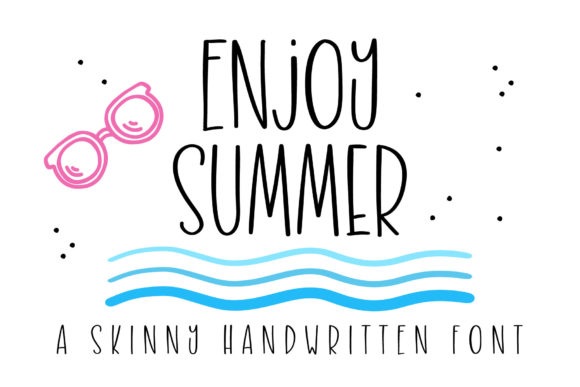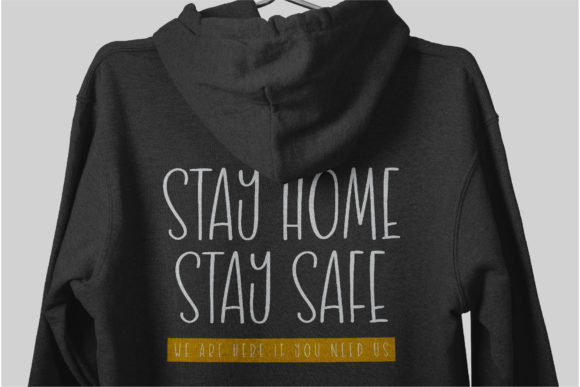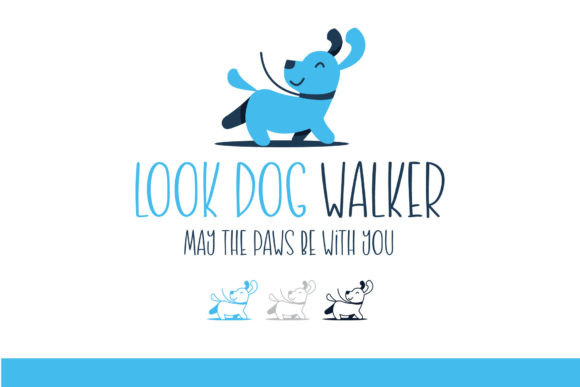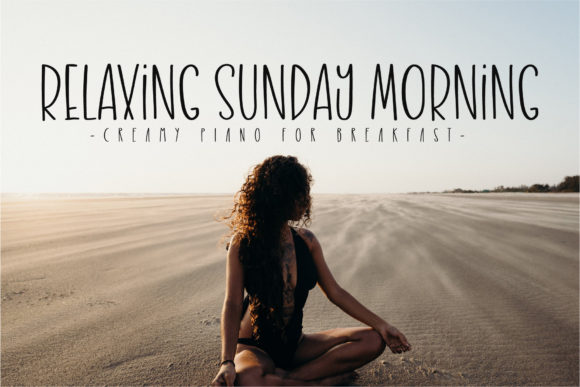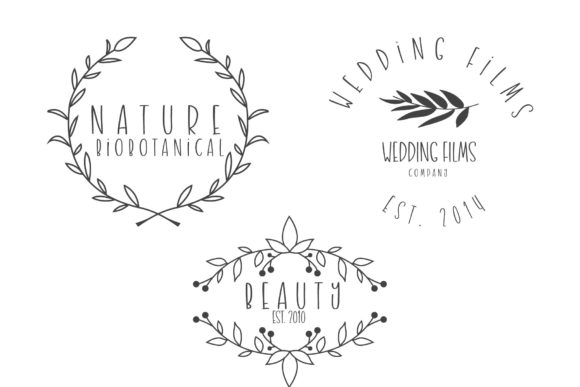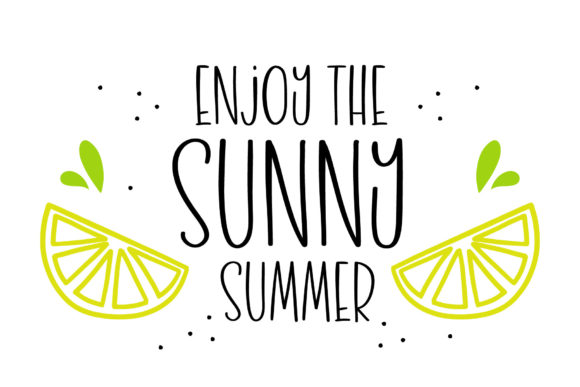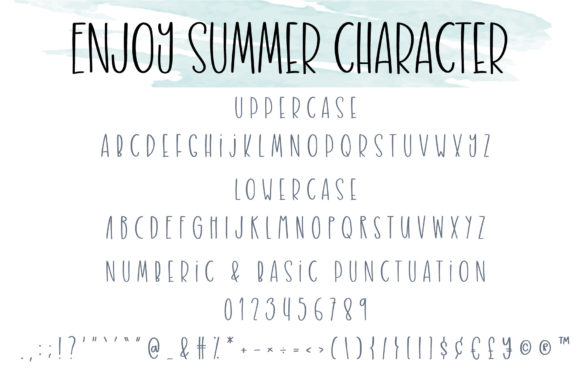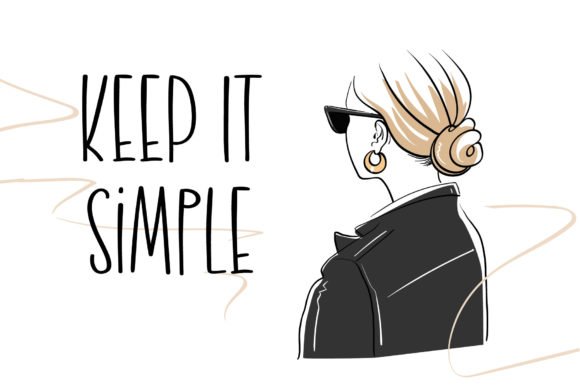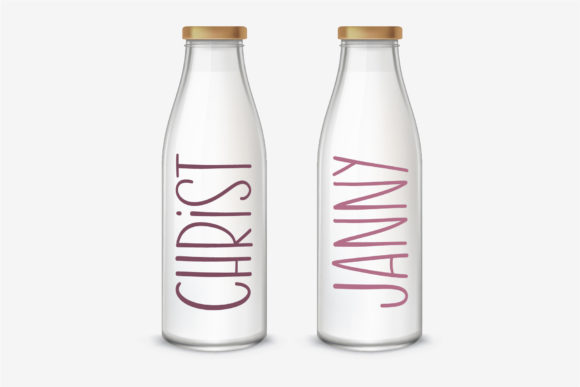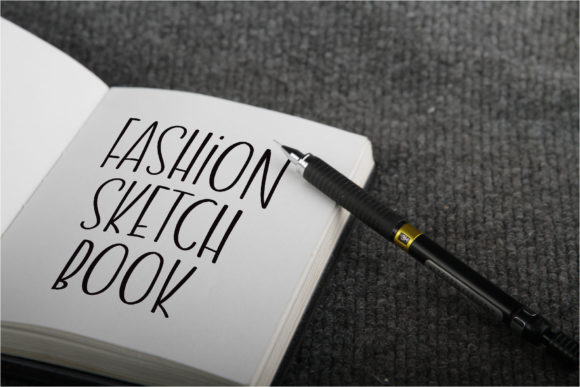
Enjoy Summer Font
About Enjoy Summer Font
Enjoy Summer is a cute and relaxed handwritten font. Its natural and unique style makes it incredibly fitting to a large pool of designs. The only limit is your imagination!